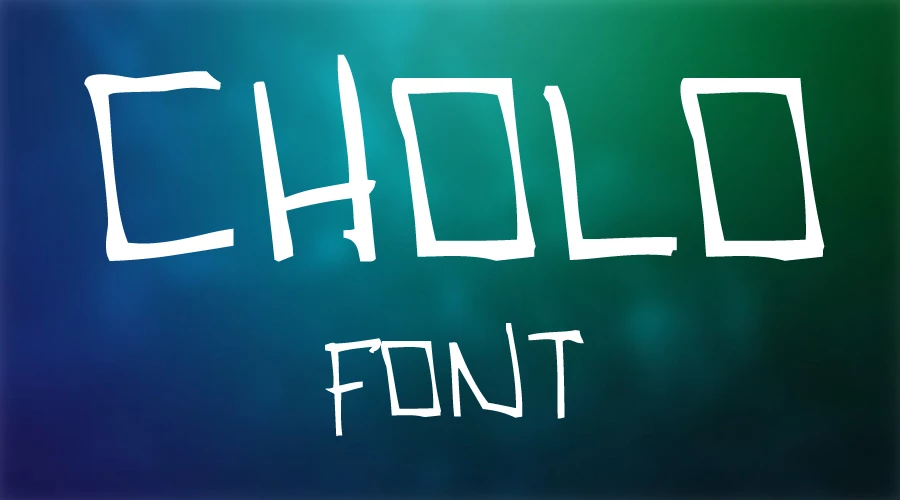
Cholo culture has its roots in Mexico, but the style has been adopted by many Central American countries. The term “cholo” originally referred to someone of indigenous Mexican descent, but it has come to refer to anyone who identifies with Mexican-American culture.
Cholo font styles are often inspired by street art and graffiti, and they typically feature thick, blocky letters. We have listed some popular Cholo fonts for you and your projects. If you’re looking for a font that oozes Latin flavor, a cholo font is definitely the way to go.
The Best Cholo Font Available
Cholo Letters Font
Cholo Letters Font is a classic script typeface that was developed by Richie Mx and has been around since the 1990s. The font was used by graffiti writers in Los Angeles. In this font, you will find uppercase letters, lowercase letters, numbers, and punctuation marks that are typical of Mexican-American gangsters in East L.A. The font comes in three different styles: regular, bold, and italic. This font is free for personal and commercial use.
Cholo Font by Apostrophic Labs
You can get this Cholo Font for personal and commercial use for free, published in 2006. It’s a free handwritten font that you can use. Cholo is the only style available for this font. The font has 214 glyphs and 217 characters.
Horror Cholo
The Horror Cholo Calligraphy font is an original design that will help you create the perfect Halloween invitation or sign. This typeface has a scary but lively appearance, making it ideal for any type of movie poster! You can also use these characters in your next tattoo session to make them stand out against all the others around town.
Original GangstA Font
The Original GangstA Font is a script typeface designed by GP Typefoundry in 2019. It has 13 glyphs and 229 characters. It’s a demo font for personal use, but for commercial use, please contact http://decadetypefoundry.storenvy.com/.
Los Santos Font
It was designed by Decade Type Foundry in 2015. It’s a script typeface with just 1 style available. You can use it for personal and commercial use as a free font.
Rangly font